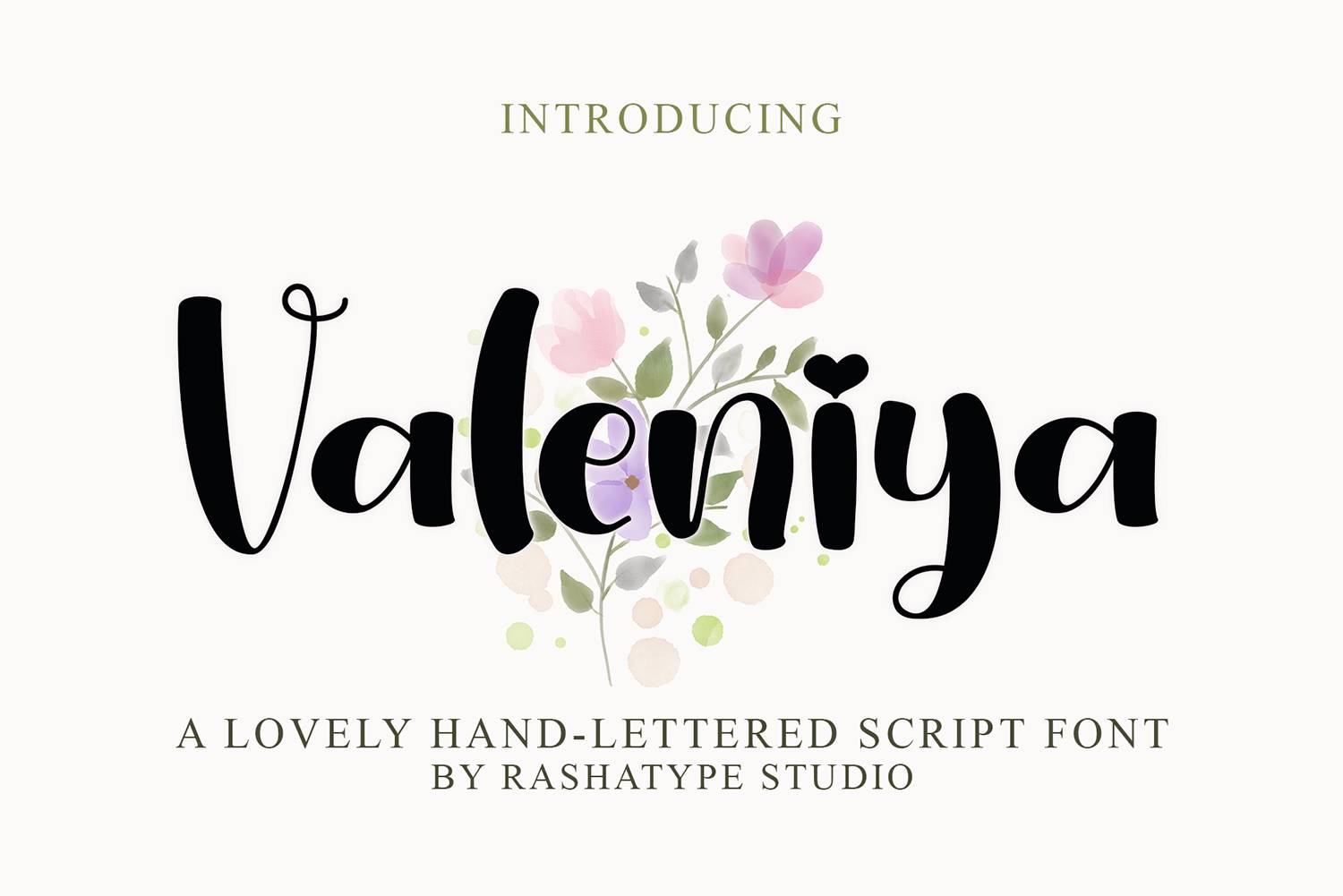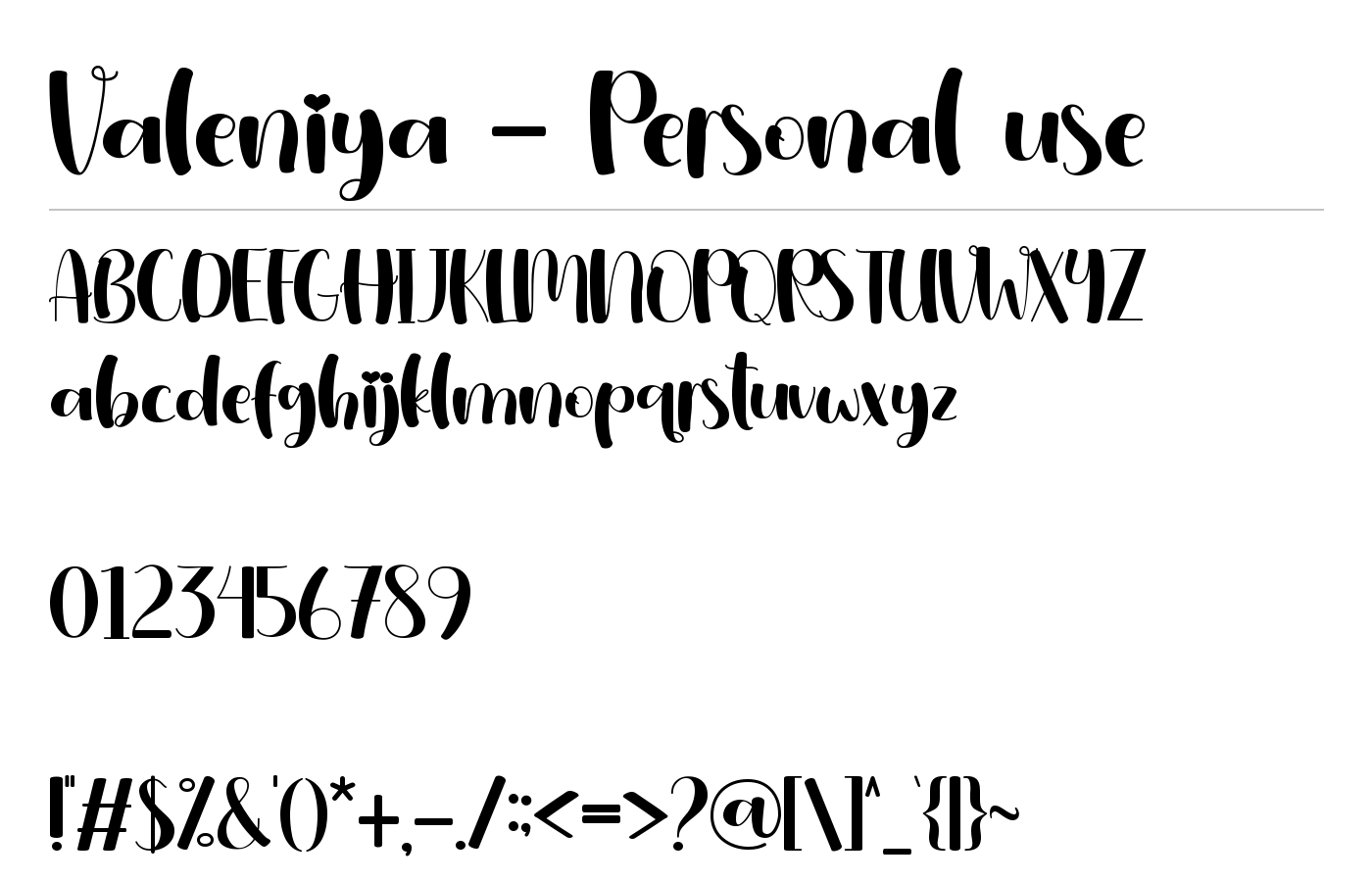
Valeniya is a playful and decorative script font characterized by its bold strokes, whimsical curly terminals, and charming heart-shaped dots on the "i"s. With its tall, narrow letterforms and strong contrast between thick and thin lines, it offers a lively, hand-lettered feel that works beautifully for personal projects, invitations, and branding that wants to convey warmth and creativity. This font shines in headlines, logos, and packaging where a friendly, artistic touch is desired.
Valeniya Font
About Valeniya Font
| Font family | Valeniya Font |
| Release date | 2018-03-31 |
| Designer | Rashatype |